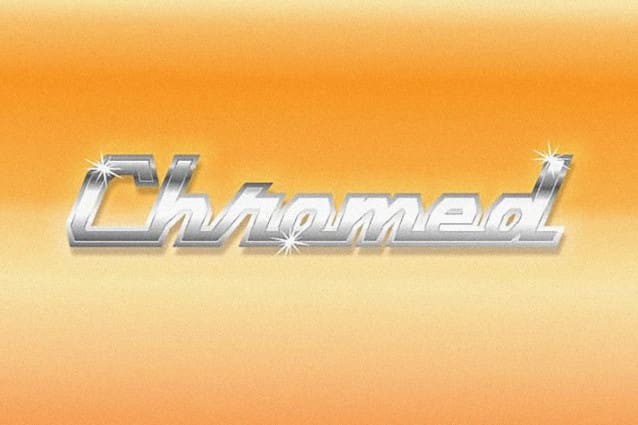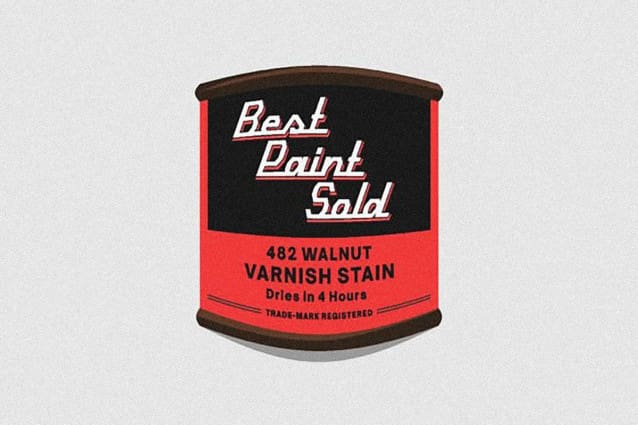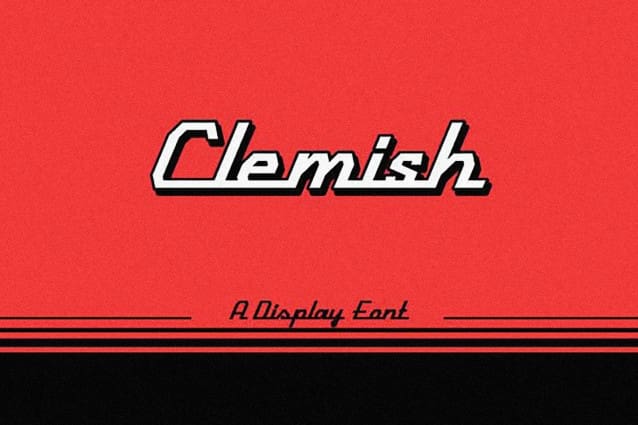
Clemish Font
Clemish Font is a unique and interesting display font. A little bit quirky, this font looks incredibly adept on a wide variety of contexts!